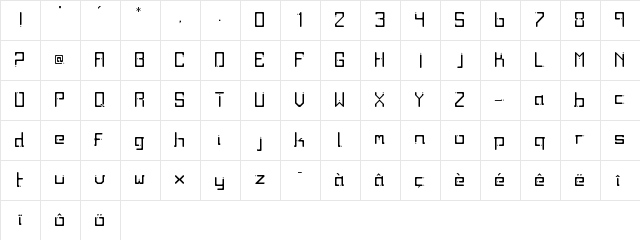
twodays Regular
Design Context for twodays Typeface
twodays offers clean, dependable letterforms without strong stylistic allegiance, making it a practical choice for designers who need flexibility.